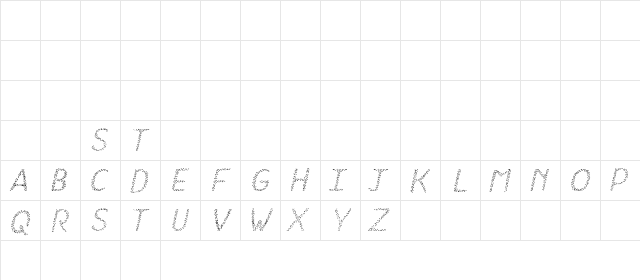
HKH Spring Buds Italic Italic
Design Context for HKH Spring Buds Italic Typeface
HKH Spring Buds Italic is a composed and adaptable typeface that performs quietly and consistently across a wide range of design contexts. Its italic angle brings a sense of urgency and motion to the letterforms.
Pro Tip: Try HKH Spring Buds Italic for annotation and caption copy alongside an upright companion — the contrast in angle creates a dynamic but ordered typographic system.